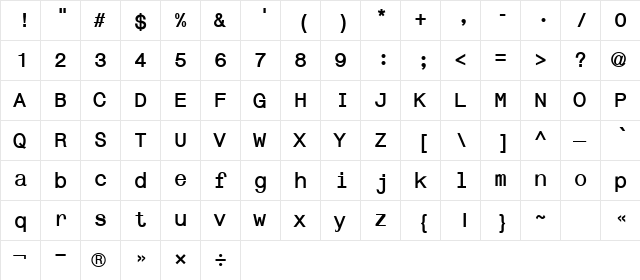
R_thai Bold
Design Context for R_thai Typeface
R_thai is a composed and adaptable typeface that performs quietly and consistently across a wide range of design contexts. The heavy weight commands attention and anchors typographic hierarchies.